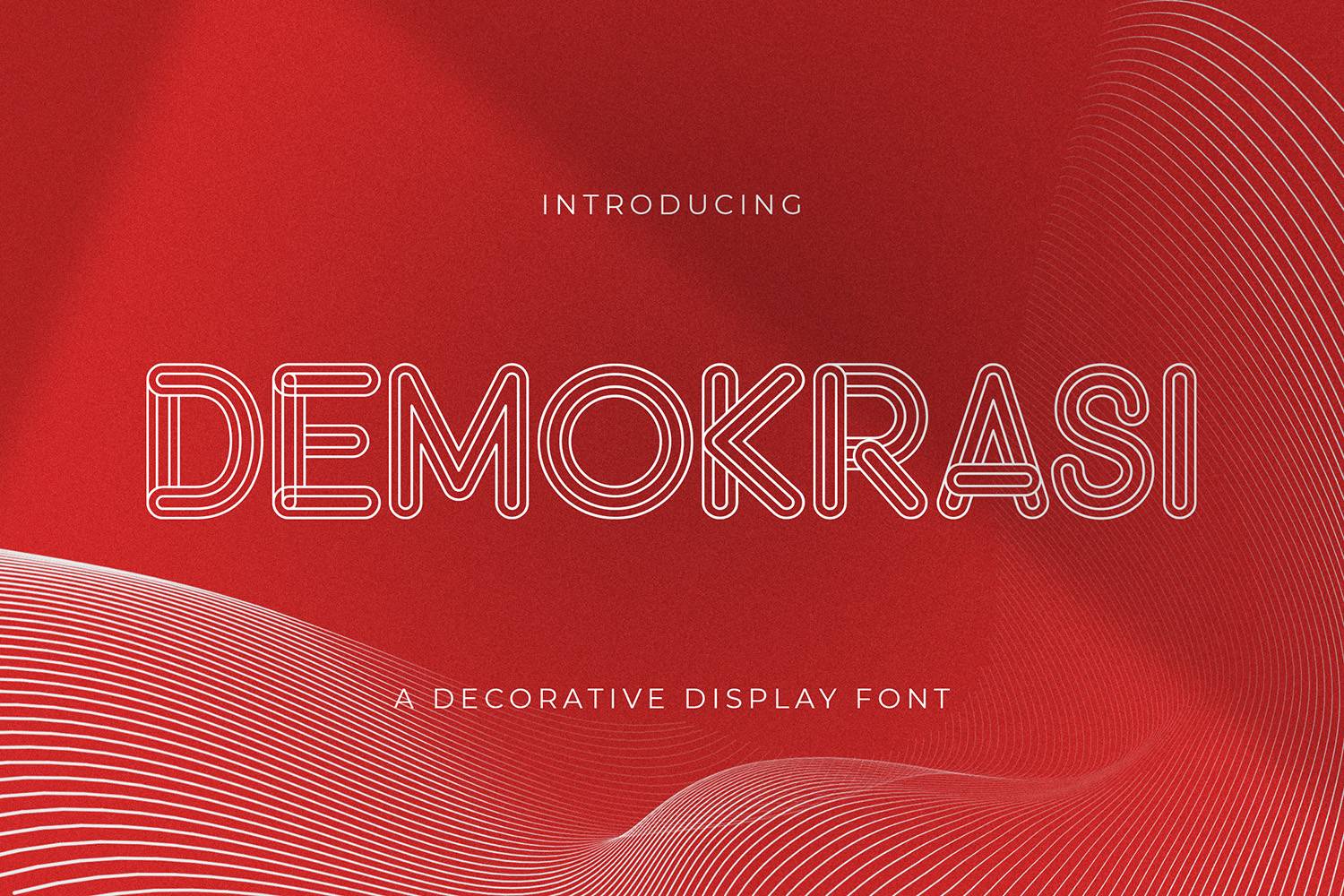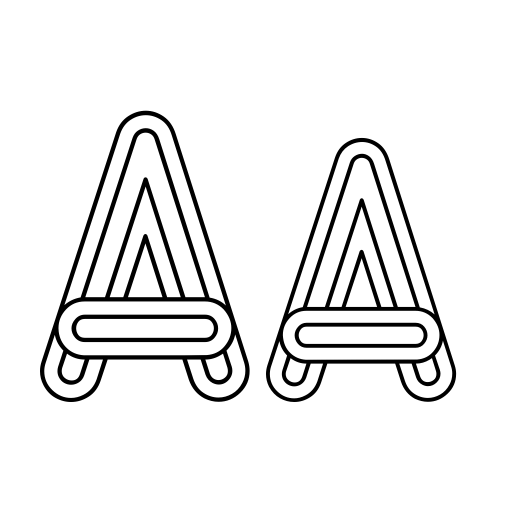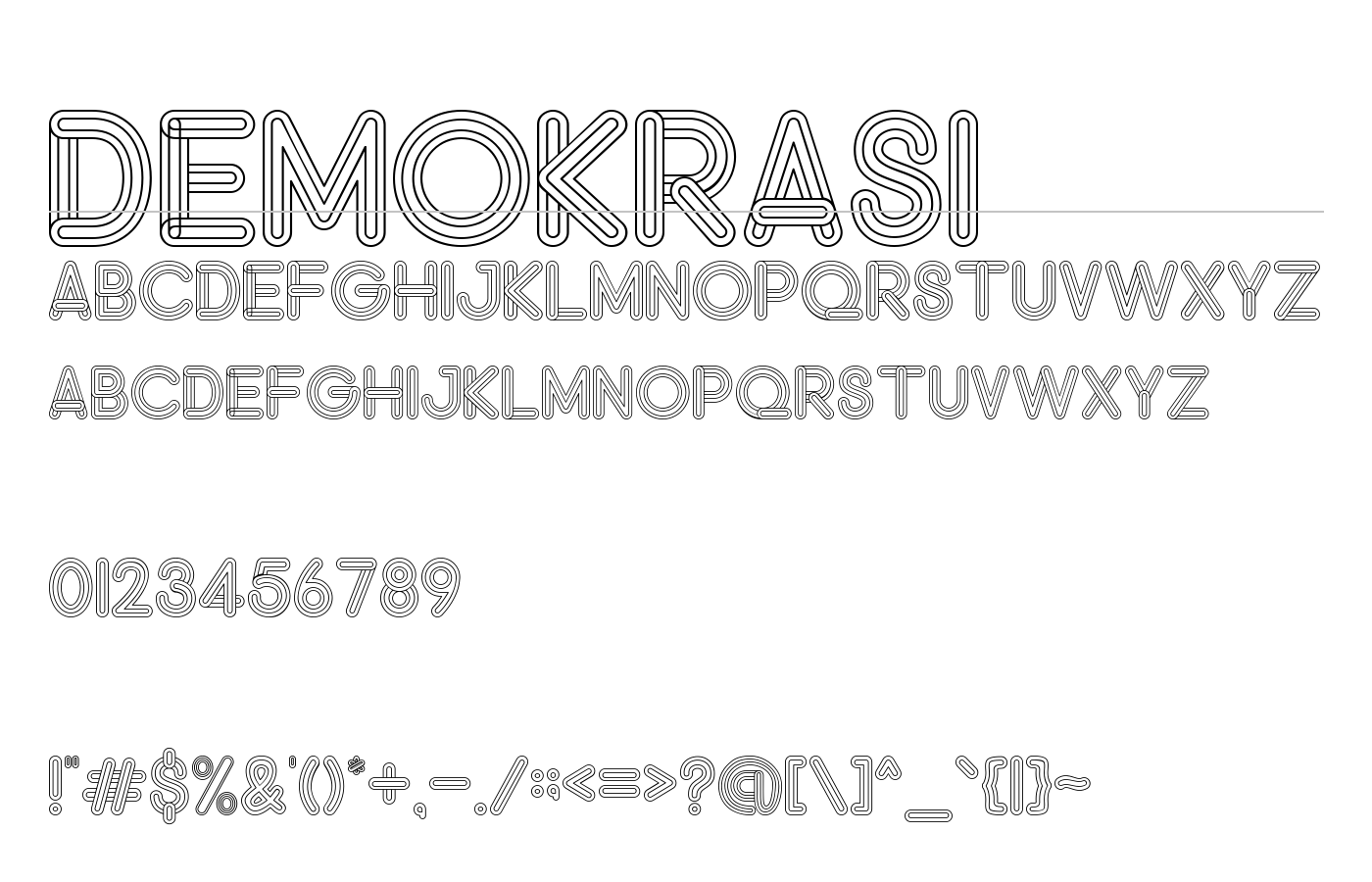
Demokrasi is a modern, geometric sans serif font with a unique layered outline style that creates a playful and dynamic visual effect. Its consistent stroke width and open letterforms give it a clean, airy feel, making it perfect for bold headlines, logos, and creative branding projects that seek a contemporary and energetic vibe. This font shines in design contexts where originality and a fresh, modern look are desired.
Demokrasi Font
About Demokrasi Font